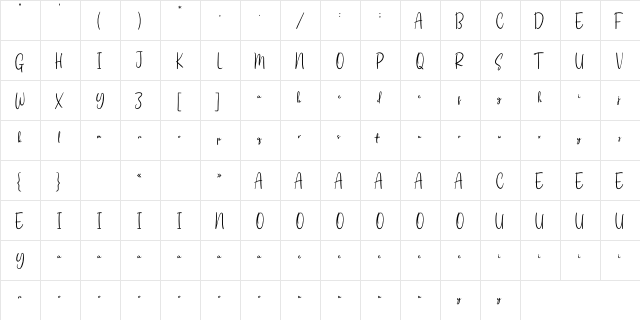
Design Context for Sunflower Spring Typeface
Sunflower Spring is a composed and adaptable typeface that performs quietly and consistently across a wide range of design contexts.
Pro Tip: Pair Sunflower Spring with a font of contrasting weight or personality to build a more expressive typographic hierarchy.